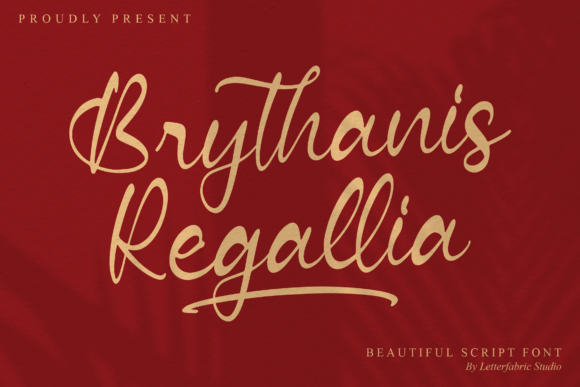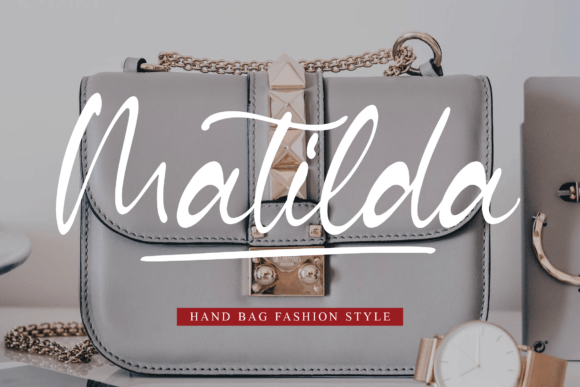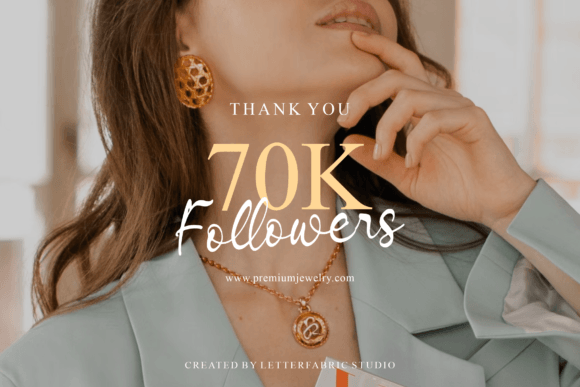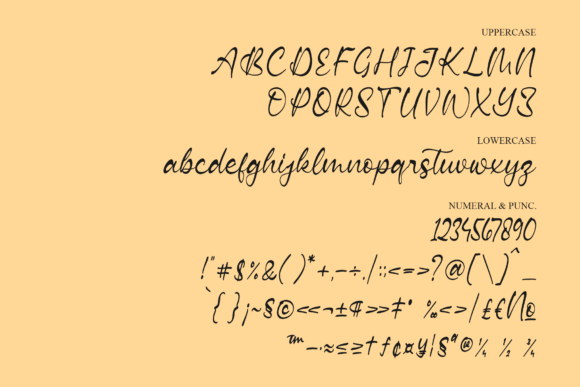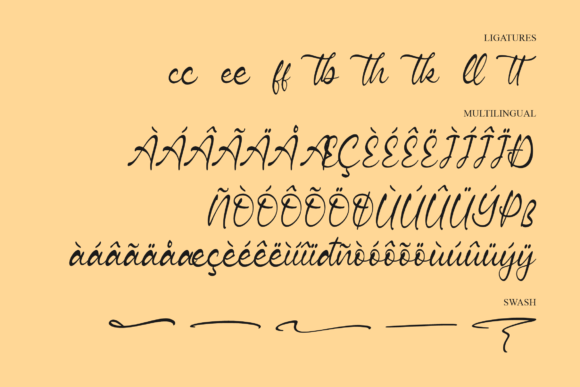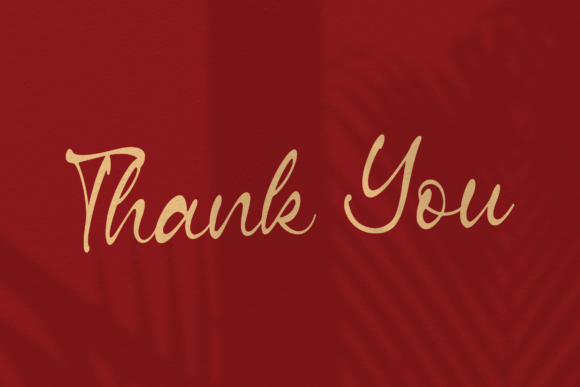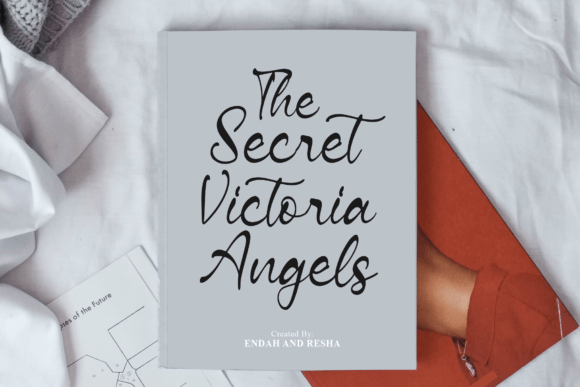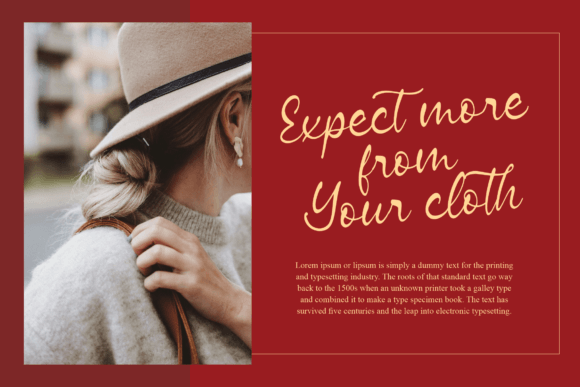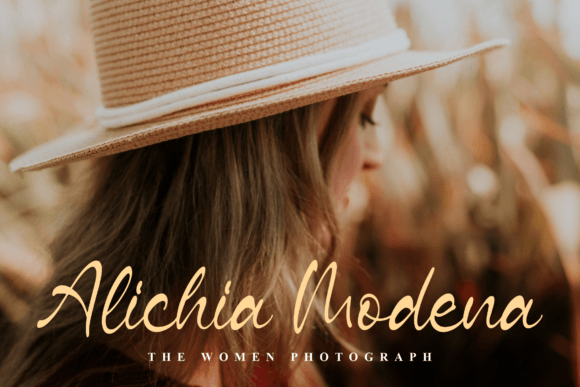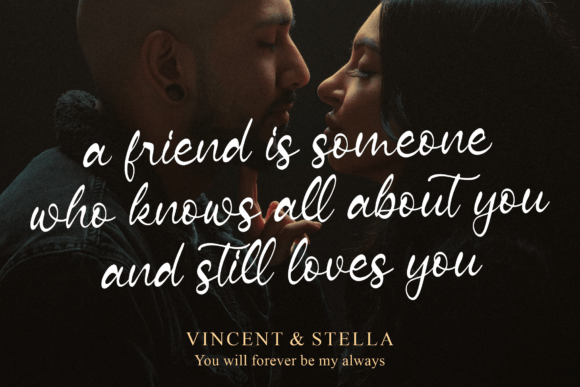
Brythanis Regallia Font
About Brythanis Regallia Font
**Brythanis Regallia: The Charming Elegance of Handwritten Perfection**
Introducing Brythanis Regallia, a font that seamlessly combines charm and elegance. With its stunning handwritten style, it’s the perfect choice for a wide range of creative projects, from wedding invitations and thank you cards to quotes, greeting cards, logos, business cards, and any design that benefits from a touch of handwritten beauty.
**Elevate Your Special Moments:**
When it comes to life’s special moments, Brythanis Regallia is the font that adds an extra layer of elegance. Whether you’re designing wedding invitations, thank you cards, or event stationery, this font brings a touch of class that makes your designs truly memorable.
**Warm and Personal:**
Brythanis Regallia has a unique warmth that only handwritten fonts can provide. It gives your designs a personal and heartfelt feel, making your message resonate with authenticity and emotion.
**Versatility Unleashed:**
One of Brythanis Regallia’s standout features is its versatility. It’s equally at home in professional branding materials, such as logos and business cards, as it is in personal projects like quotes and greeting cards. This versatility ensures that you can use Brythanis Regallia across a wide range of applications.
**Timeless Beauty:**
Brythanis Regallia’s timeless beauty ensures that your designs remain relevant and captivating, no matter the era or style. It’s a font that transcends trends and continues to enchant audiences with its classic elegance.
**Perfect for Print and Digital:**
Whether your project is destined for print or digital platforms, Brythanis Regallia excels in both environments. Its clarity and readability ensure that your message or design elements shine through, whether on paper or on-screen.
**Leave a Lasting Impression:**
Brythanis Regallia is more than just a font; it’s a tool to leave a lasting impression. It’s the choice of those who appreciate the art of handwritten beauty and want to infuse their designs with timeless charm and elegance.
**Embrace the Charming Elegance of Brythanis Regallia:**
In summary, Brythanis Regallia is the font that effortlessly combines charm and elegance. Whether you’re celebrating life’s special moments or creating professional branding materials, this font adds a touch of handwritten beauty that captivates and resonates. Make Brythanis Regallia your choice when you want to embrace the charming elegance of handwritten perfection in your designs.